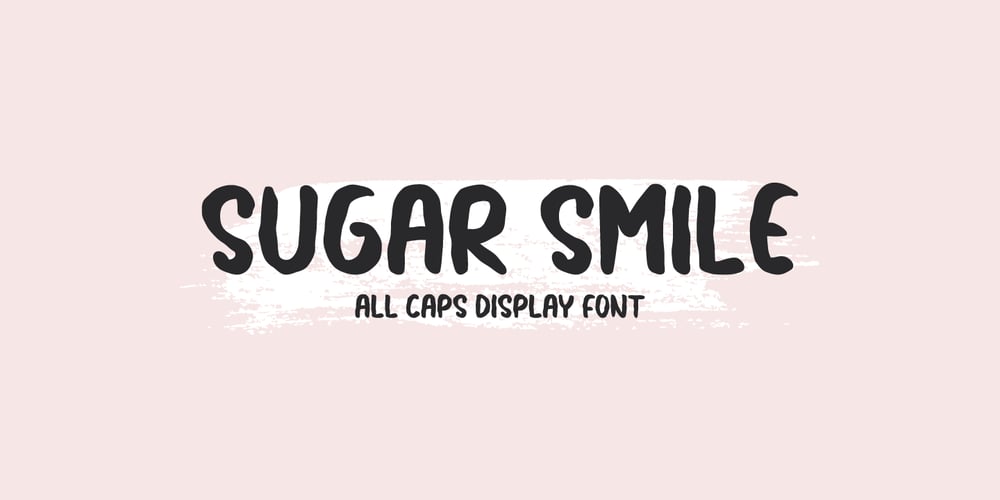
Sugar Smile Font Family was designed by Prio Nurokhim Aji and published by Prioritype. Sugar Smile contains 1 styles and family package options. Introducing.Sugar Smile – All Caps Display FontSweet font with hand strokes. Simple and eye catching. You can apply it to craft designs, promotions, creative posts, apparel, quotes, merchandise, posters etc. See some of the previews above for reference.Features:• Uppercase• Lowercase• Numeral• Punctuation• Multilingual• PUA EncodedThanks.